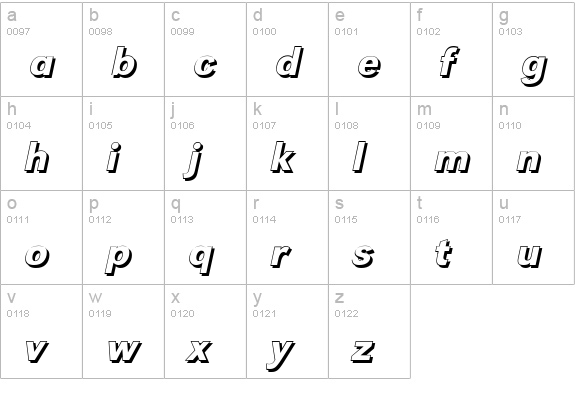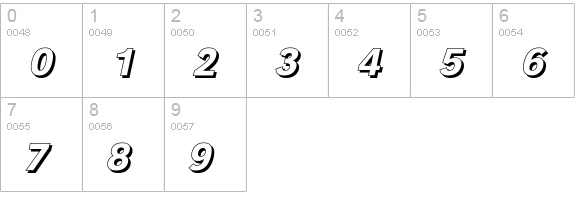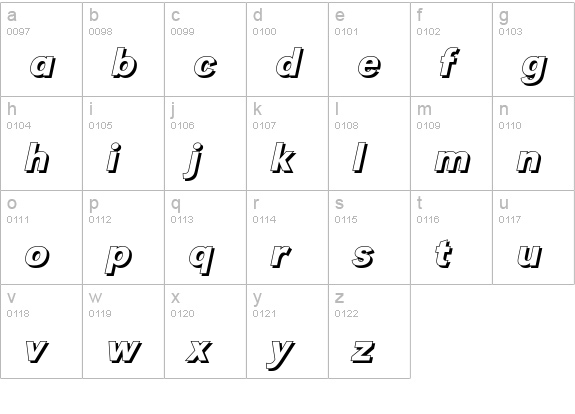
GroteskSh-Medium-Italic Font Details
GroteskSh-Medium-Italic is a balanced, medium-weight, italic variant in the GroteskSh typeface family \xE2\x80\x94 well suited to sub-headlines, navigation, and balanced editorial work.
GroteskSh-Medium-Italic font is a stylish and versatile typeface that strikes the perfect balance between modernity and classic elegance. Its sleek design and subtle slant make it ideal for a wide range of design projects, from branding to editorial design. The medium weight adds a sense of sophistication, while the italic styling brings a touch of flair. Best of all, GroteskSh-Medium-Italic font is completely free to use! That's right, this high-quality font is freely available to download at FontsMarket.com. Whether you're a graphic designer, a web developer, or a creative professional looking to add a touch of refinement to your projects, GroteskSh-Medium-Italic font is the perfect choice. Download it today and elevate your designs with this elegant and versatile typeface.